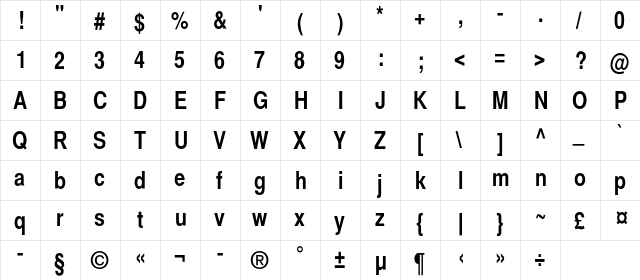
BastionC Bold
Design Context for BastionC Typeface
BastionC is a composed and adaptable typeface that performs quietly and consistently across a wide range of design contexts. Its bold stroke weight gives it real presence on the page.
Dating back to 1991, this typeface is available in OpenType (OTF) format.